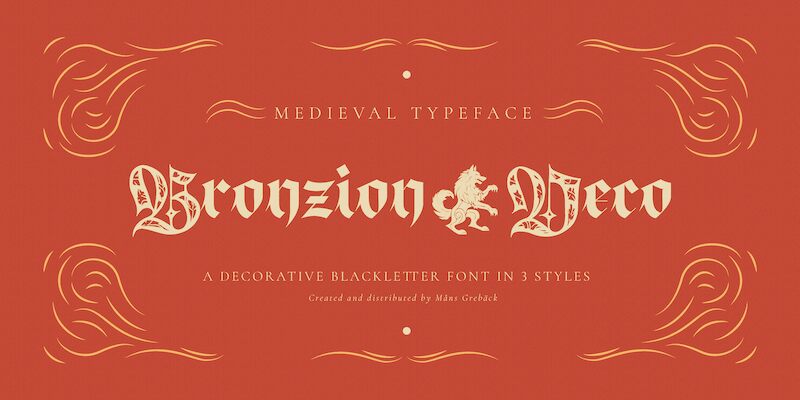
Bronzion Deco, designed by the talented Mans Greback, is a semi-bold gothic font that exudes medieval elegance with a contemporary twist. Its intricate letterforms boast a unique blend of sharp and curvaceous lines that captivate the eye, while its ornate serifs and striking contrast between thick and thin strokes evoke the grandeur of historical manuscripts.
This font's aesthetic appeal lies in its harmonious marriage of tradition and modernity, making it an excellent choice for projects aiming to impart an air of sophistication with an old-world charm. Whether used in branding, invitation design, or artistic compositions, Bronzion Deco's versatility allows it to stand out in both print and digital mediums.
With its distinctive style and strong visual impact, Bronzion Deco can transform any creative endeavor into a work of art that commands attention while honoring the storied past of gothic typography.